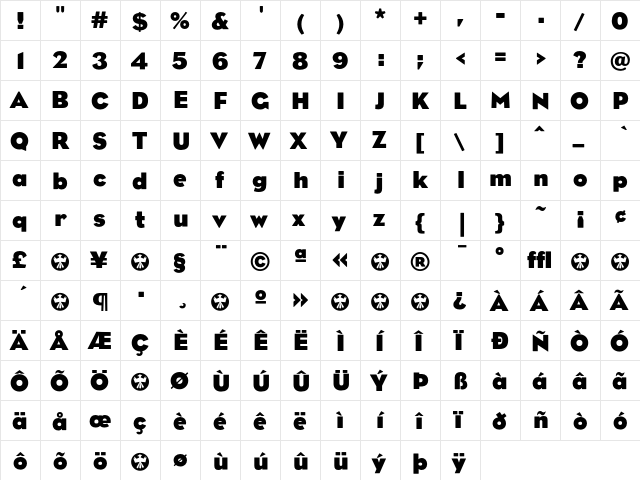
Eagle Bold Font Preview
Eagle Bold
Eagle Bold Font Details
Design Context for Eagle Typeface
Eagle takes a measured approach to typography — its balanced proportions and neutral character make it a reliable workhorse for both digital and print work. The heavy weight commands attention and anchors typographic hierarchies.